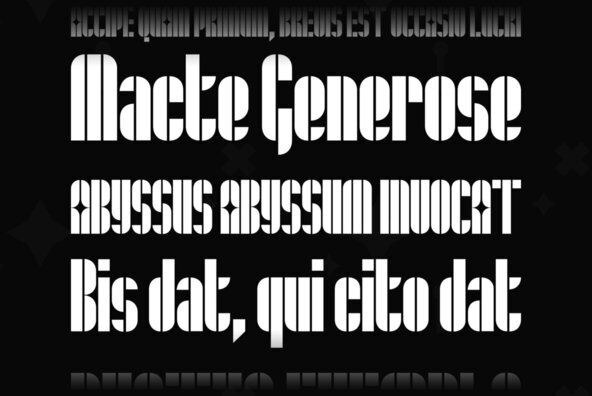
Maat is a modular geometric stencil display font that includes a number of modular pattern characters, and can be used to create designs that echo early Modernism by merely applying letters, patterns and color. Maat is a loose interpretation of a hand lettered alphabet by the late Dutch designer Jurrian Schrofer called Sans Serious which was included in Wim Crouwel’s publication Letters of Maat. It is inflected with a bit of influence from British designer Ken Garland’s similar lettering form the cover of his textbook, The Graphics Handbook. Maat derives its name from the title of Couwel’s booklet.